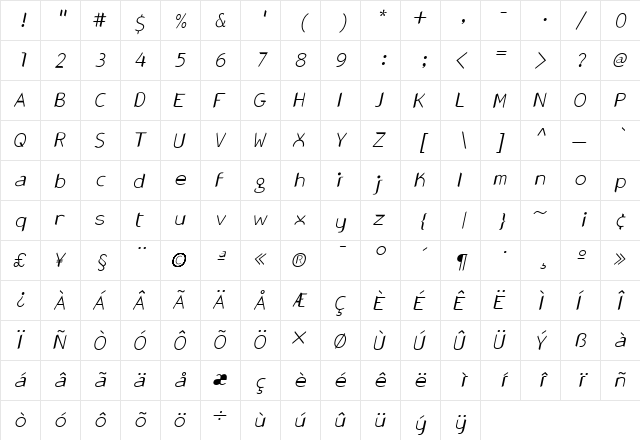
Gonza Medium Italic
Design Context for Gonza Typeface
Gonza is a composed and adaptable typeface that performs quietly and consistently across a wide range of design contexts. Its italic angle brings a sense of urgency and motion to the letterforms.
Pro Tip: Use Gonza for emphasis, pull quotes, and subheadings where its slanted energy can add rhythm to the layout.